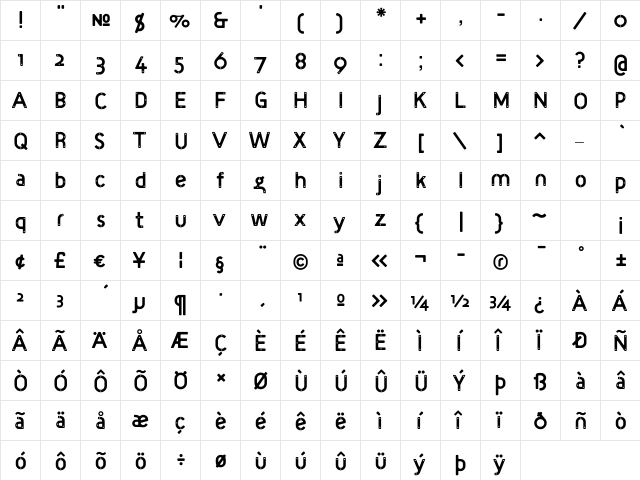
TargetBolt Regular
Design Context for TargetBolt Typeface
TargetBolt is a composed and adaptable typeface that performs quietly and consistently across a wide range of design contexts.